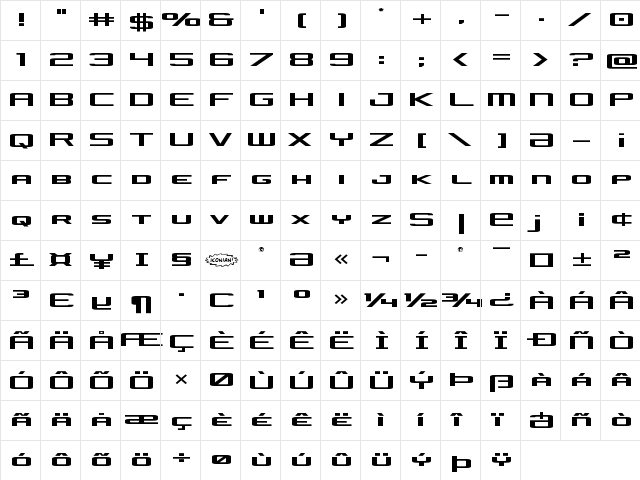
Concielian Jet Expanded Expanded
Design Context for Concielian Jet Expanded Typeface
Concielian Jet Expanded takes a measured approach to typography — its balanced proportions and neutral character make it a reliable workhorse for both digital and print work.